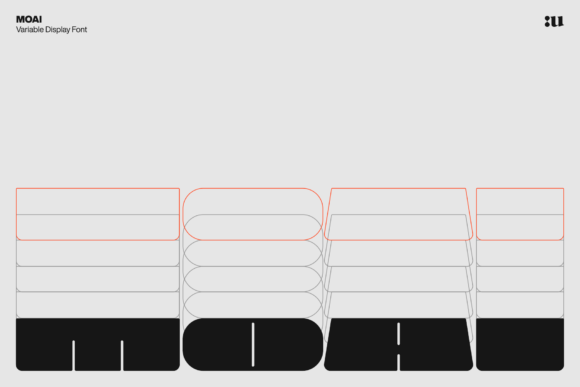
Step into a world of captivating visuals and dynamic designs with Moai Font, the ultimate display font that brings your creative visions to life. Experience the bold and striking presence of this font, crafted with precision to elevate your designs and leave a lasting impact.
Moai Font is not just a collection of letters; it's an artistic expression that ignites your creativity and empowers you to craft stunning visuals that resonate with your audience. Whether you're a seasoned designer or just starting your journey, Moai Font is your perfect companion, guiding you towards captivating designs that leave a lasting impression.
Immerse yourself in the versatility of Moai Font, a font family that adapts seamlessly to your diverse design needs. From eye-catching headlines that demand attention to captivating posters that tell a story, Moai Font rises to every occasion, delivering exceptional results that leave your audience in awe.
Unleash your imagination and explore the endless possibilities of Moai Font. Create stunning logos that embody your brand's essence, design social media posts that spark engagement, or craft presentations that command attention. With Moai Font, your designs will transcend the ordinary and enter the realm of the extraordinary.
Moai Font: Your Gateway to Creative Excellence.